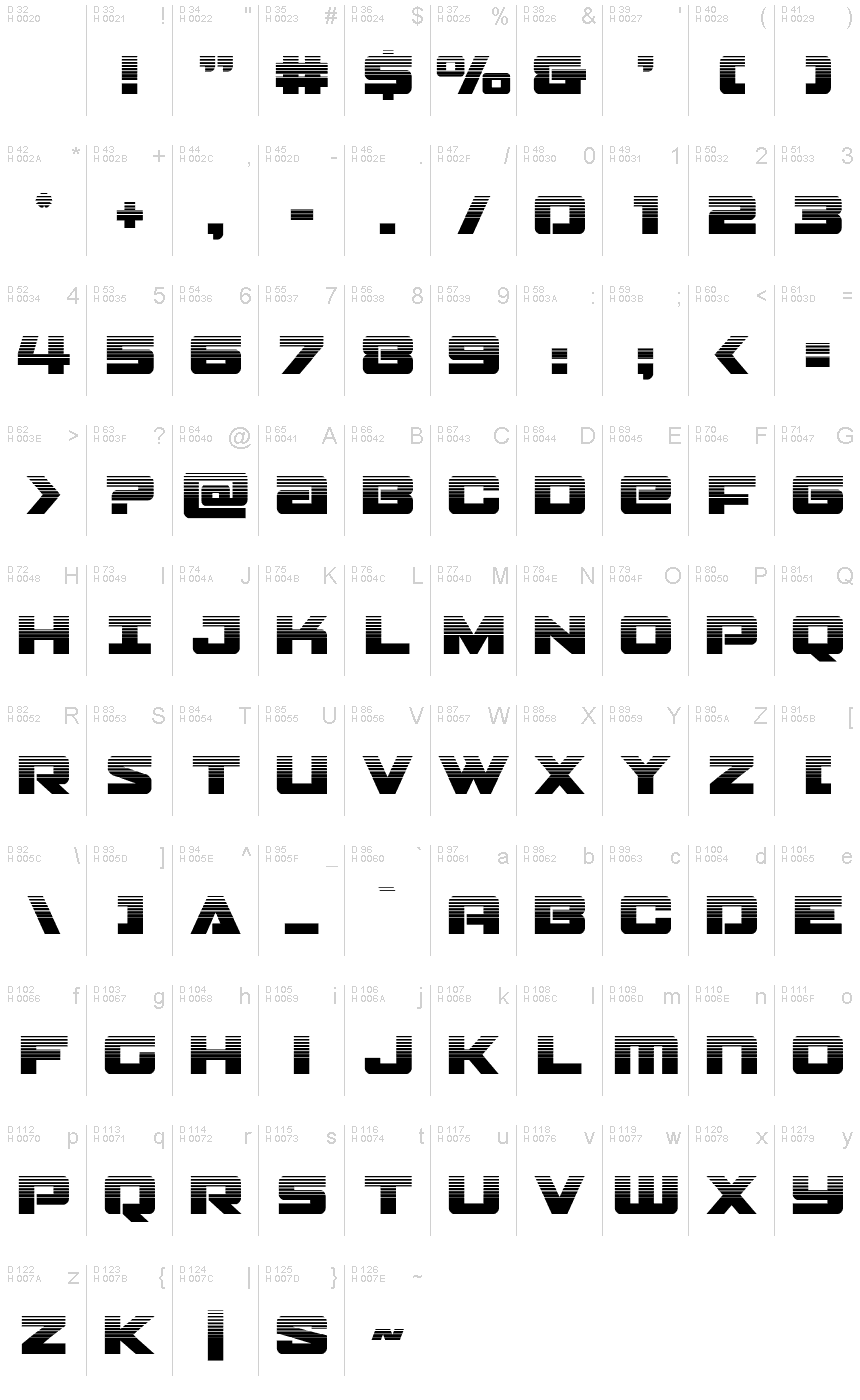
Power Broker Halftone
Power Broker Halftone, a striking addition to the Power Broker font family by Iconian Fonts, exudes a bold presence with its extra-bold weight and extra-expanded width. This display typeface boasts a futuristic style that captures the essence of modernity and technology. Its character shapes are infused with a distinctive halftone pattern that adds texture and visual depth, making it stand out in any creative project.
The font's aesthetic appeal lies in its ability to command attention while maintaining readability - a balance not easily achieved in display fonts. The Power Broker Halftone is an excellent choice for designers looking to impart strength and contemporary flair to branding, advertising campaigns, or editorial designs.
Its suitability spans across various mediums - from digital interfaces to print materials. Whether you're crafting eye-catching headlines or looking for the perfect typeface for thematic posters, this font's unique characteristics ensure your work will leave a lasting impression.